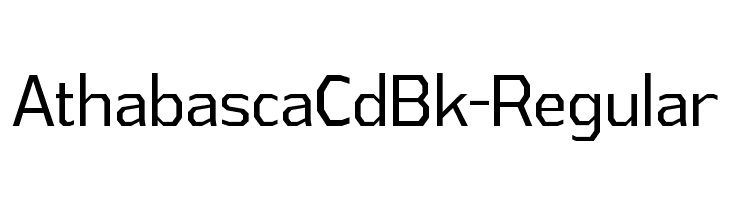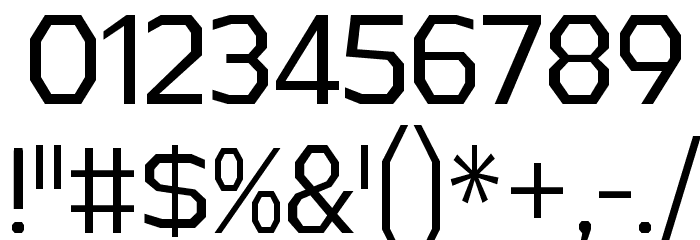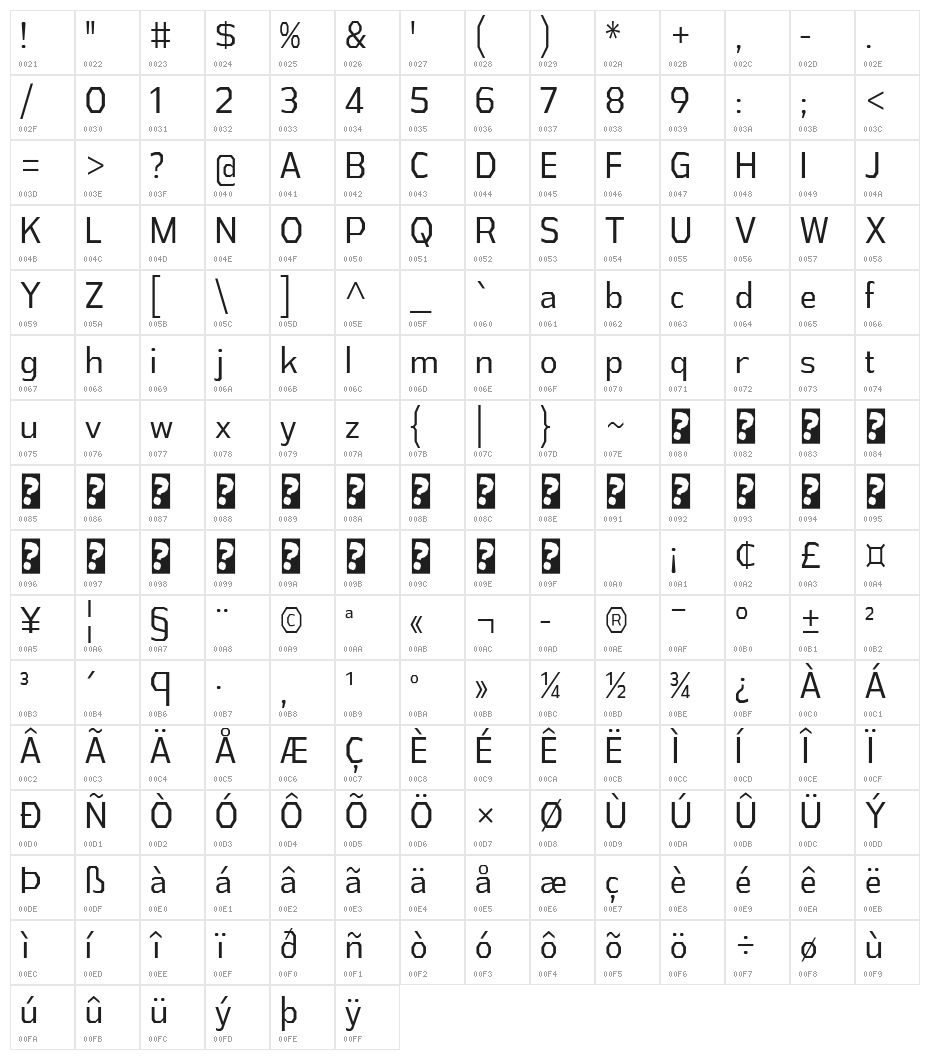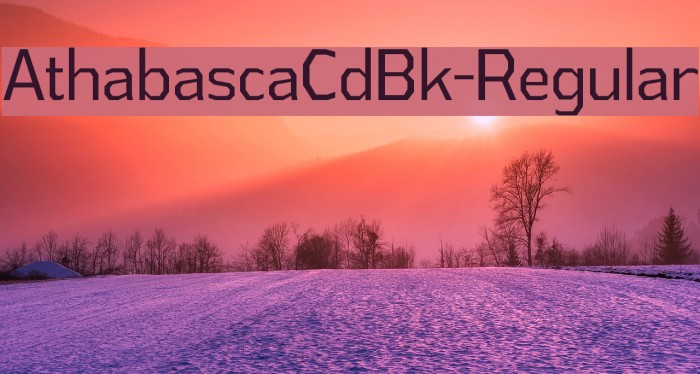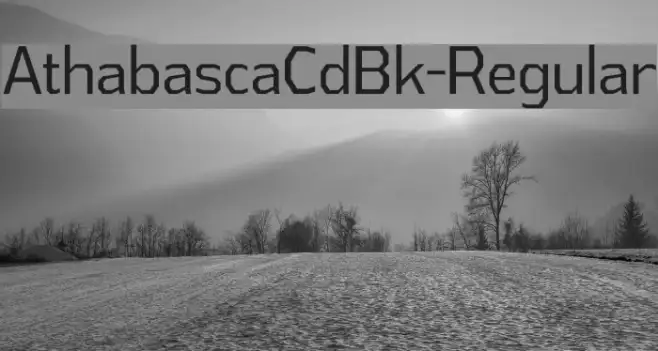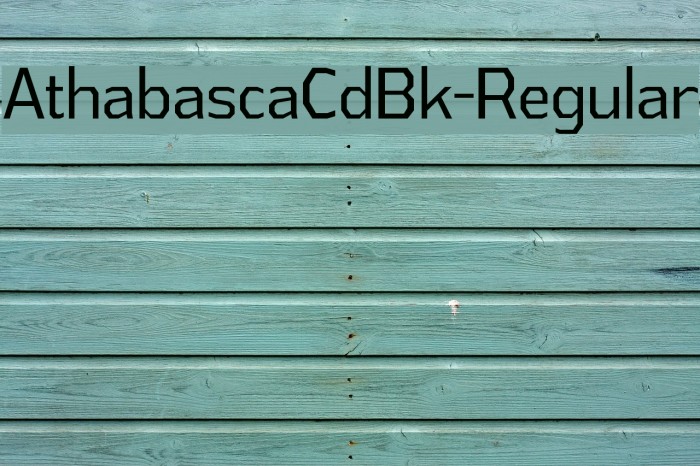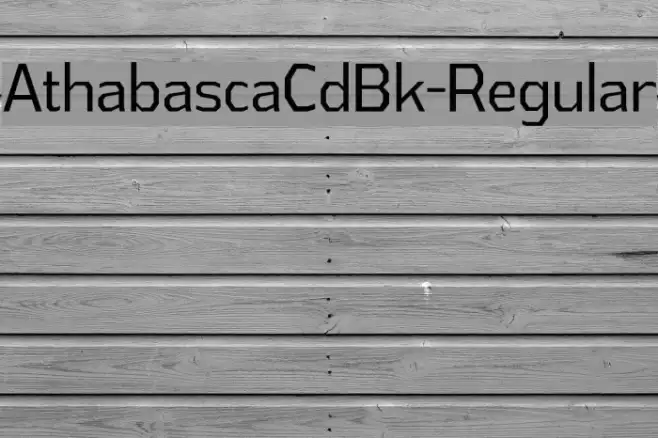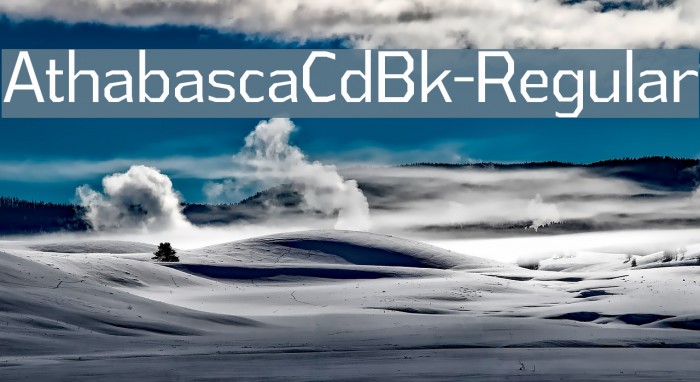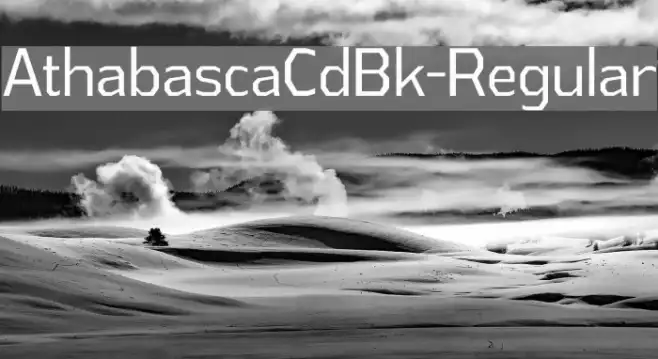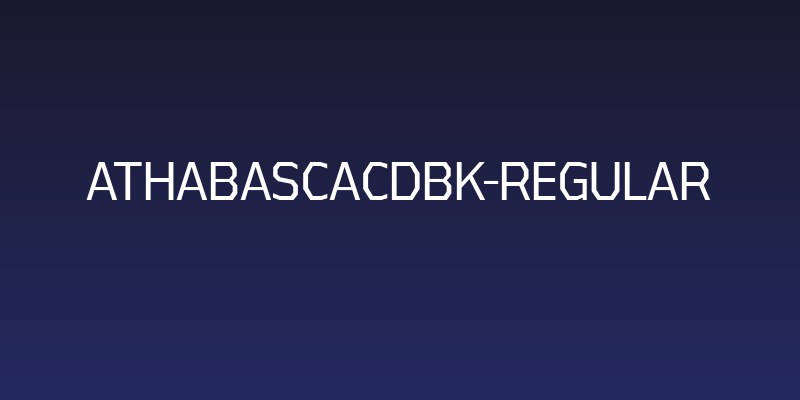
AthabascaCdBk-Regular Font
AthabascaCdBk-Regular Description
This font features a geometric and modern design with clean, straight lines and sharp angles. The uppercase and lowercase letters maintain a consistent height, giving it a uniform appearance. The numerals are bold and clear, making them easily distinguishable. Special characters are designed to match the overall aesthetic, ensuring a cohesive look. The font's structure is simple yet effective, making it versatile for various design needs. Its clarity and precision make it suitable for both digital and print media.
| Proposed Projects | Ideal for branding, signage, digital interfaces, and editorial design. |